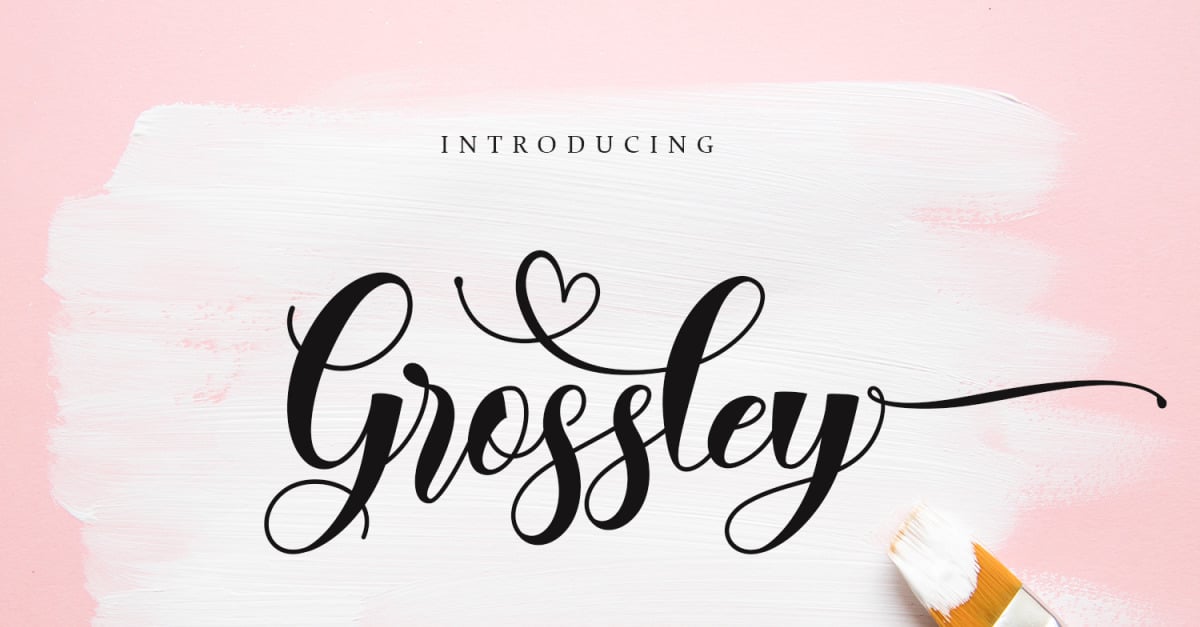
Grossley - Modern Calligraphy Font
Grossley is a modern calligraphy font. It looks gorgeous on wedding invitations, thank you cards, quotes, greeting cards, logos, business cards, branding, homeware designs, product packaging, mugs, posters, shopping bags, t-shirts, book covers, invitation cards, greeting cards, label, photography, watermark, special events and every other design which needs a handwritten touch.
Features :
- Uppercase & Lowercase
- Numerals
- Punctuations (OpenType Standard)
- Accents (Multilingual Characters)
- Ligatures and Alternative Style Stylistic Set
This font is PUA encoded which means you can access all of the glyphs and swashes with ease! It features a varying baseline, smooth lines, gorgeous glyphs and stunning alternates.